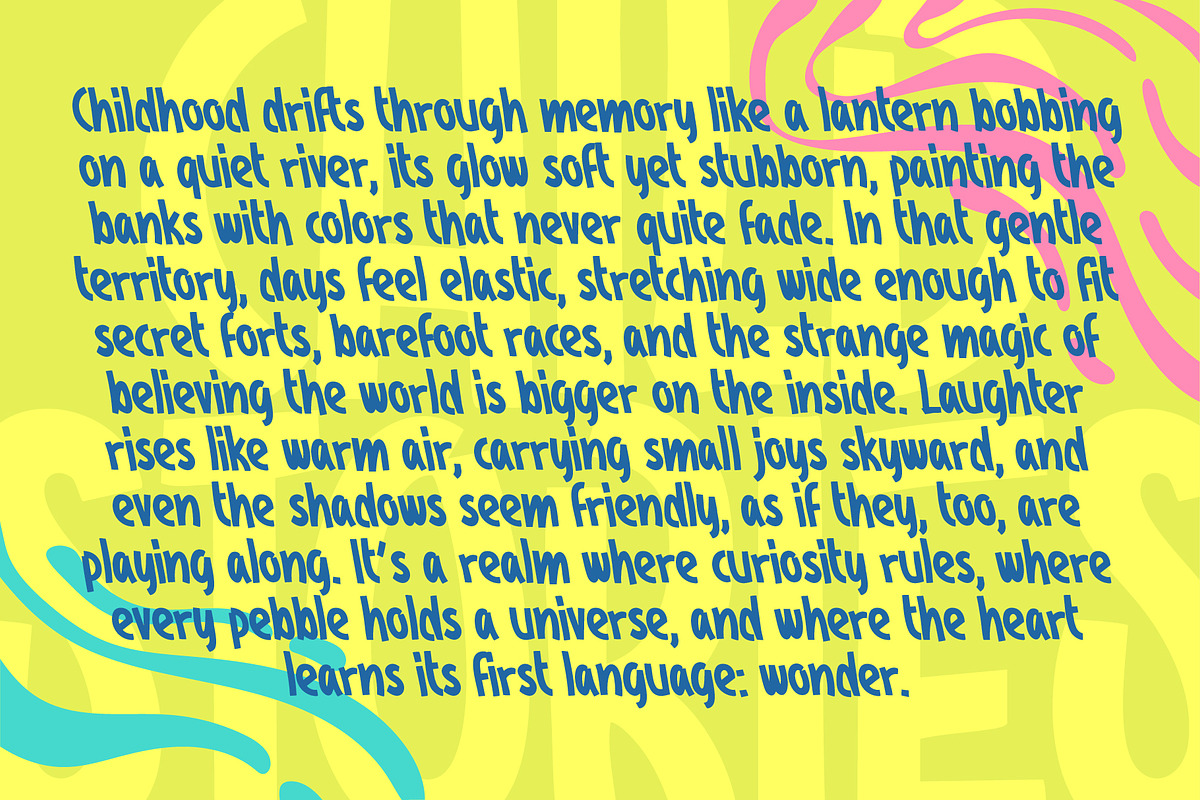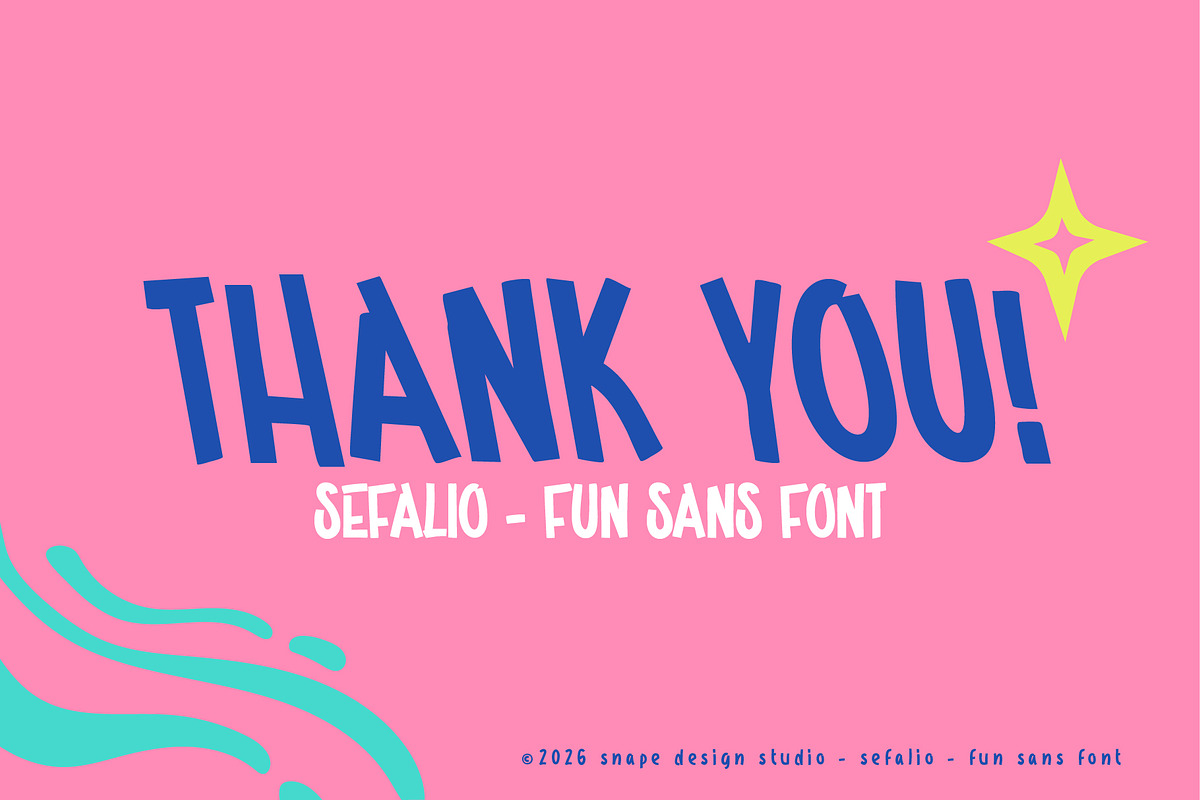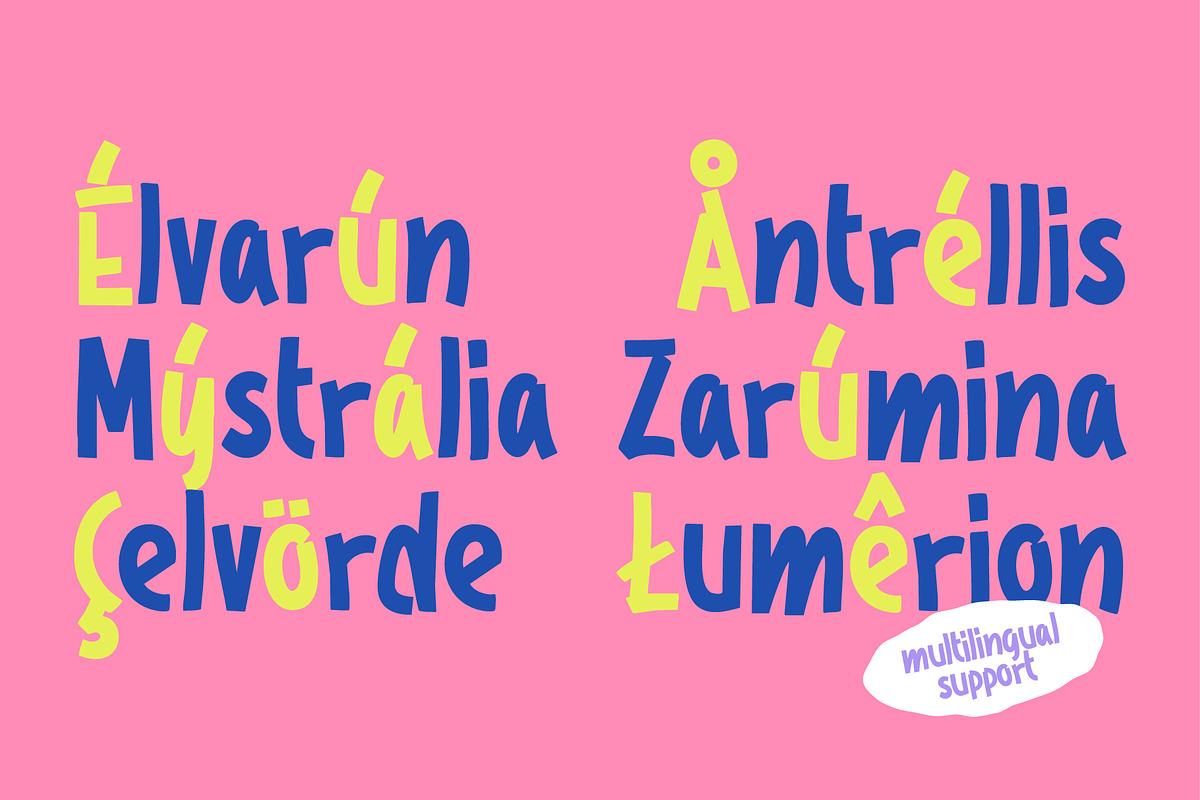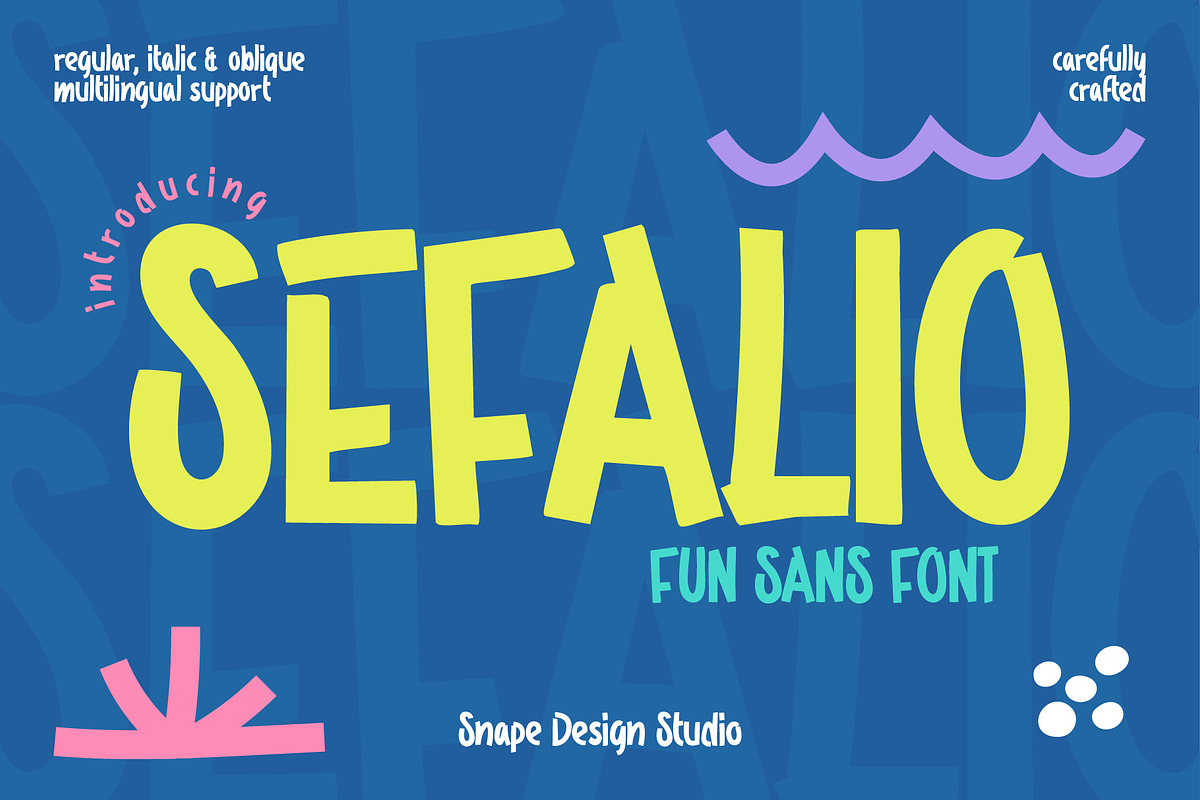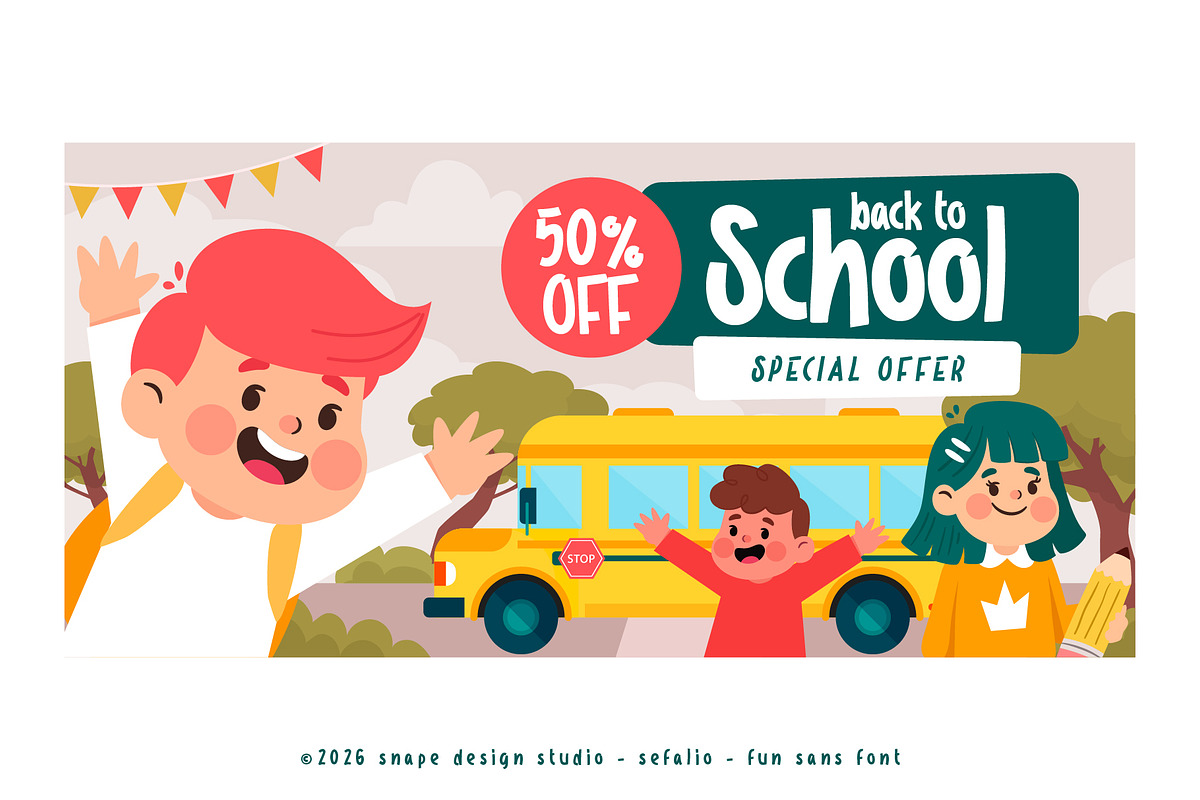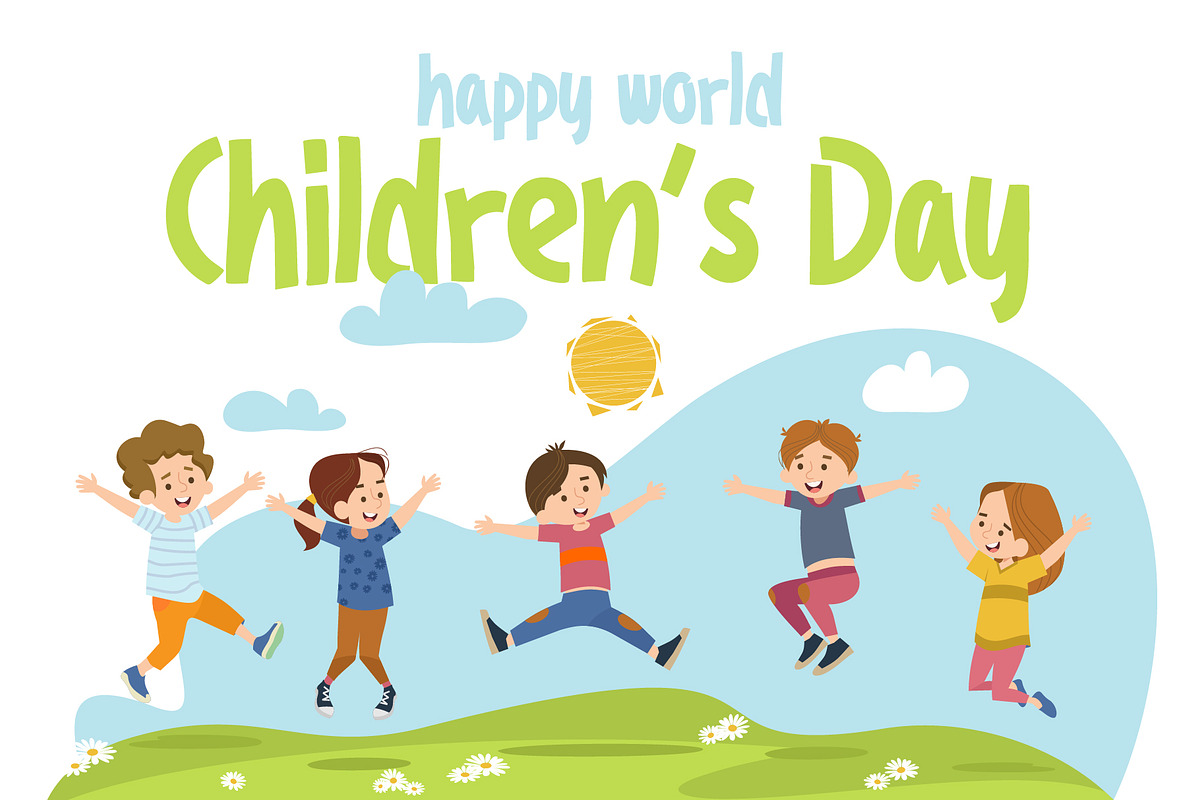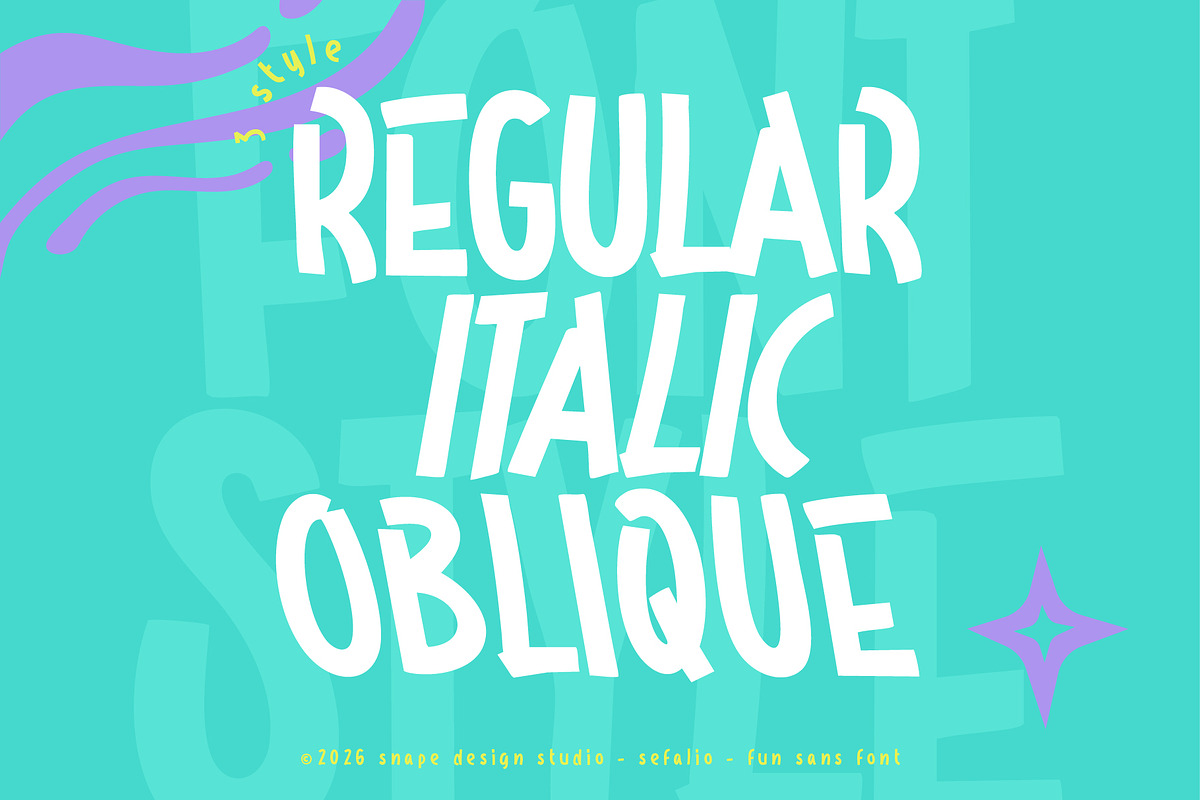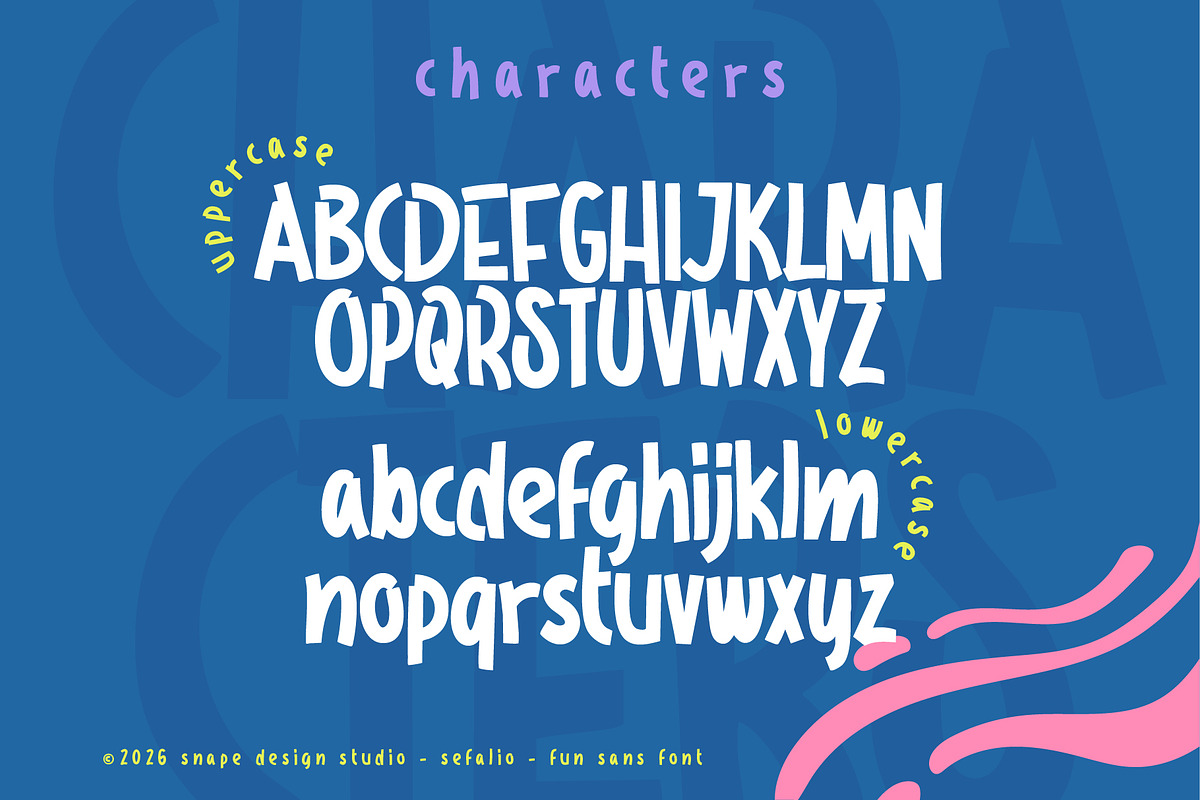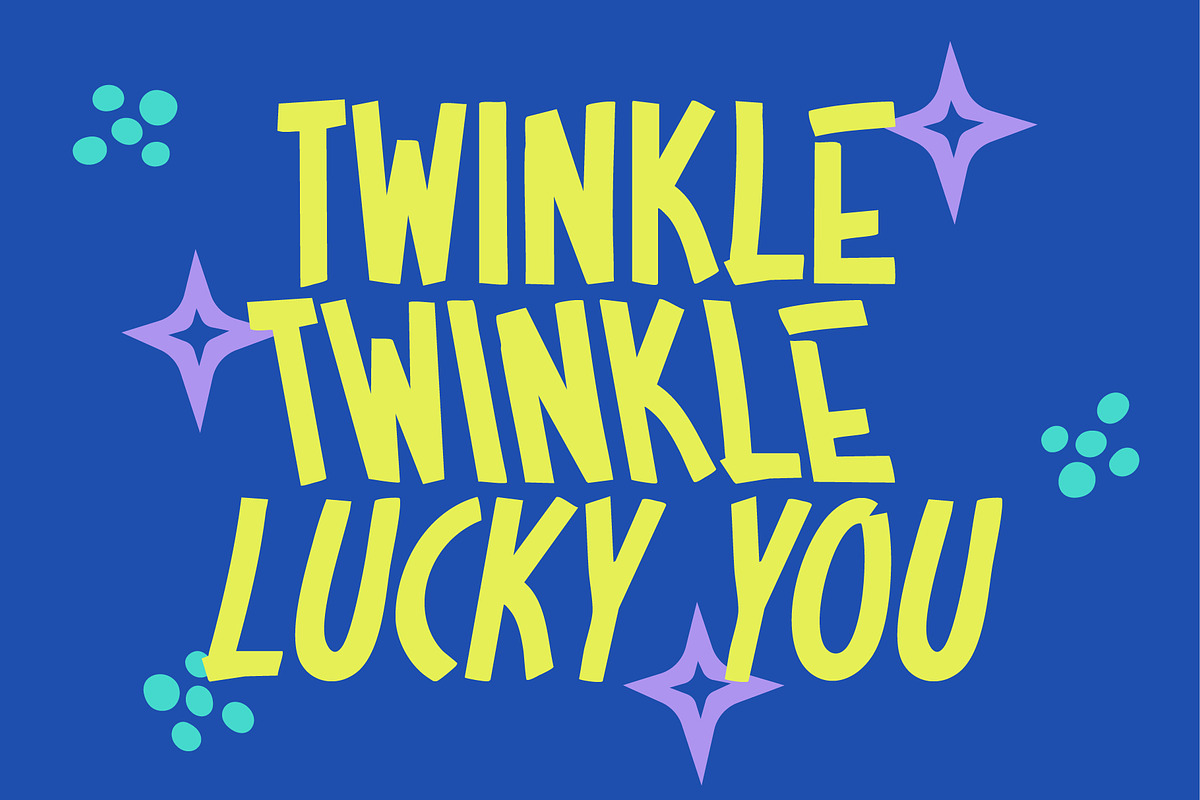
Sefalio - Fun Sans Font
SEFALIO is a fun sans font with a bold, playful, and energetic personality. Designed to bring joy and expression into your designs, SEFALIO is perfect for posters, creative branding, headlines, kids designs, social media graphics, and eye catching editorial projects. It comes in regular, italic, and oblique styles with multilingual support, making it a versatile choice for modern, friendly, and vibrant visual communication.